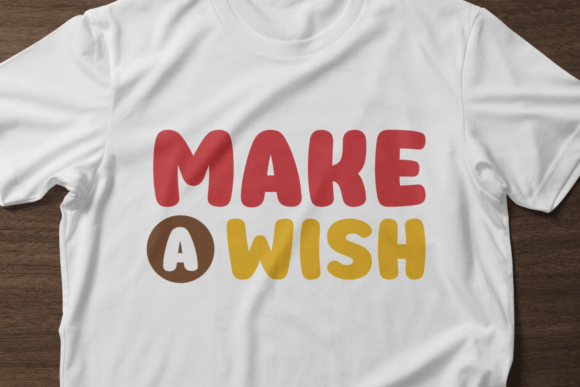
Smart Hopes Font
“Smart Hopes” is a delightful and cute display font that effortlessly blends charm and simplicity. With its playful letterforms and endearing design, Smart Hopes adds a touch of sweetness to any project. Perfect for invitations, greeting cards, or anything that needs a dash of adorable personality. Embrace the whimsical side of typography with Smart Hopes and let your designs radiate warmth and cheerfulness.